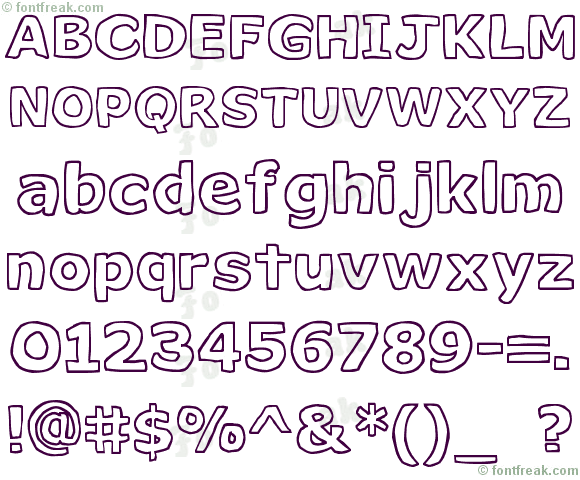
Milk Cocoa (sRB)
About Milk Cocoa
Milk Cocoa by Srb-powers is a delightful display font that exudes charm and warmth, ideal for a variety of creative projects. This typeface is characterized by its rounded, soft edges and a friendly demeanor, making it a perfect choice for designs that require a touch of playfulness. The stroke weight is balanced, offering a moderate contrast that enhances readability while maintaining an inviting aesthetic. The spacing between characters is well-considered, allowing for fluidity in text flow, which is essential for capturing the attention of your audience.
This font shines in specific use cases such as wedding invitations, where its whimsical style can add a personal touch to a romantic theme. It is also well-suited for café menus, as the name suggests a cozy ambiance that can enhance the dining experience. Additionally, Milk Cocoa can be effectively utilized in children's book covers or educational materials, where its approachable design can attract young readers. Furthermore, it works beautifully for branding small businesses, particularly those in the food and beverage industry, as it communicates warmth and approachability.
The target audience for Milk Cocoa includes graphic designers, small business owners, and content creators looking for a font that brings a sense of friendliness and warmth to their projects. It's particularly appealing to those who wish to evoke a sense of nostalgia or comfort in their work.